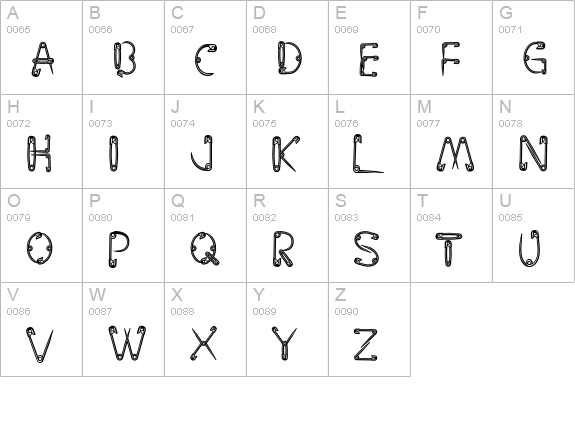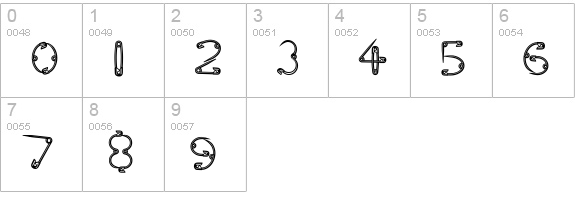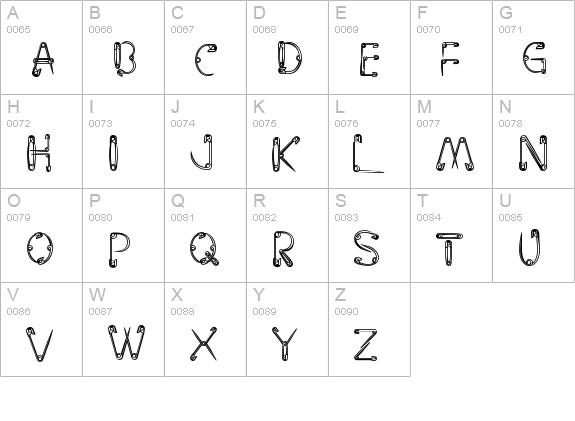
Safety Pin Font Details
Introducing Safety Pin font, a versatile and modern typeface that adds a touch of edginess to any design project. With its sharp angles and bold lines, Safety Pin font exudes a sense of strength and resilience. This font is perfect for creating eye-catching headlines, logos, posters, and more. What makes Safety Pin font even more appealing is that it is completely free to download at FontsMarket.com. You can easily access this unique font and incorporate it into your designs without any cost. Don't miss out on the opportunity to elevate your projects with the striking aesthetics of Safety Pin font. Download it now and let your creativity soar!